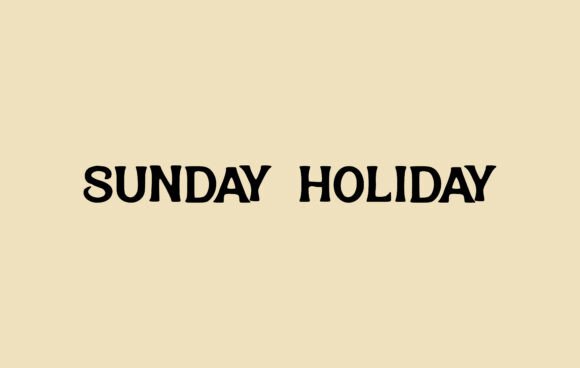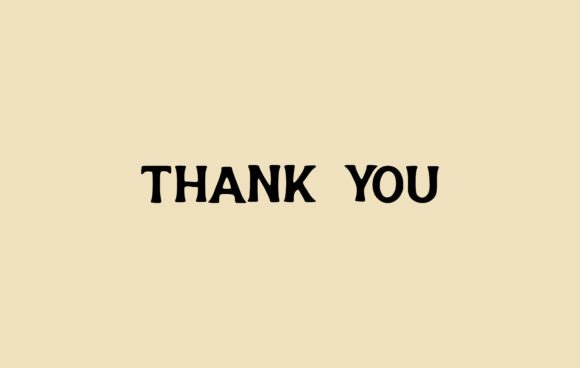
Echinacea Font: Embodying the Spirit of Nature in Typography
In the realm of typography, few fonts manage to capture the essence of nature and handcrafted elegance as effectively as Echinacea. This bold serif display font has been making waves in the design community with its unique blend of organic, uneven curves that lend it a distinctly handcrafted, earthy feel. Echinacea is not just a font; it’s a statement piece that brings a touch of the natural world to your branding, packaging, or editorial projects.
The Distinctive Characteristics of Echinacea
Echinacea’s standout feature is its wide stance, which gives it a confident and expansive presence on any medium. This, combined with its expressive personality, makes it an ideal choice for designers looking to create a bold impression. Whether it’s for eco-conscious branding, artisan packaging, or bold editorial layouts, Echinacea brings a level of sophistication and earthiness that’s hard to achieve with more conventional fonts.
One of the key aspects of Echinacea’s design is its balance between strength and warmth. In a world where digital media often feels cold and impersonal, Echinacea offers a refreshing alternative. Its bold serifs and organic curves strike a perfect balance, making it both sturdy and inviting. This balance is crucial for brands and designers aiming to convey a sense of reliability and approachability while still standing out in a crowded marketplace.
Applications of Echinacea Font
The versatility of Echinacea is one of its most compelling attributes. Here are a few ways designers and crafters can utilize this unique font:
- Eco-Conscious Branding: For brands that prioritize sustainability and environmental responsibility, Echinacea offers a typographic solution that aligns perfectly with their values. Its earthy feel and organic appearance help convey a brand’s commitment to nature.
- Artisan Packaging: For products that are handmade or emphasize craftsmanship, Echinacea can add a touch of authenticity and charm. Its handcrafted look can enhance the perceived value of the product and make it more appealing to customers looking for unique, artisanal goods.
- Bold Editorial Layouts: In editorial design, Echinacea can be used to create striking headlines and titles that capture the reader’s attention. Its boldness and expressiveness make it perfect for magazine covers, article titles, or any other application where making a strong visual impact is desired.
Why Choose Echinacea?
In a sea of digital fonts that often lack character and personality, Echinacea stands out for several reasons:
- Unique Aesthetic: Echinacea’s organic, uneven curves offer a refreshing departure from the clean, geometric lines of more traditional fonts. This uniqueness can help brands and projects differentiate themselves.
- Versatility: Despite its distinctive look, Echinacea is surprisingly versatile. It can be used in a variety of contexts, from digital platforms to print materials, without losing its impact.
- Emotional Connection: Fonts have the power to evoke emotions and associations. Echinacea’s earthy, handcrafted feel can help create a warm, inviting atmosphere that resonates with audiences on a more personal level.
Echinacea is more than just a font; it’s a design statement that embodies the spirit of nature and craftsmanship. Its unique blend of boldness, organic curves, and earthy feel makes it an invaluable tool for designers and crafters looking to add a touch of authenticity and character to their projects. Whether you’re working on eco-conscious branding, artisan packaging, or bold editorial layouts, Echinacea offers a distinctive aesthetic that can help your work stand out. With its balance of strength and warmth, Echinacea is poised to become a favorite among those who value both form and function in their design choices.